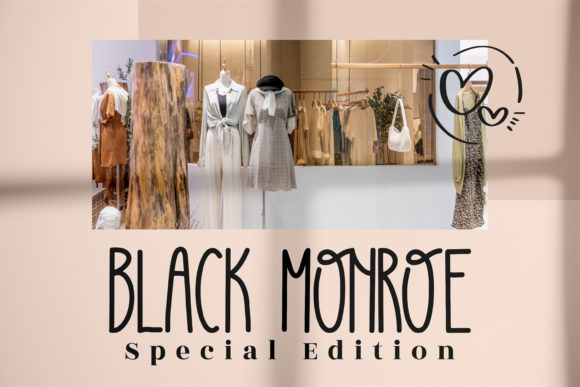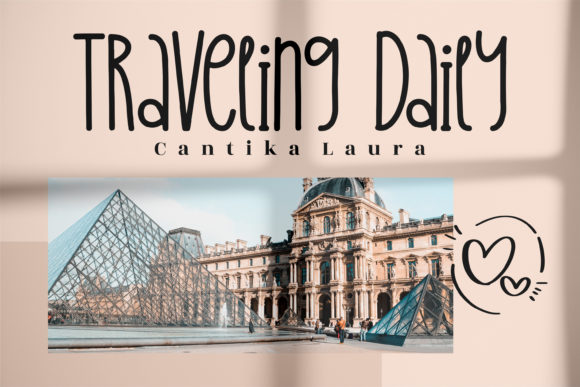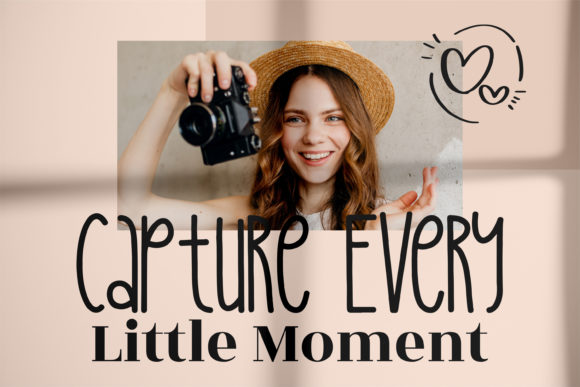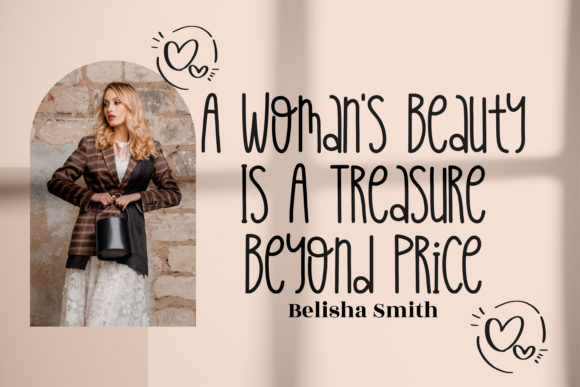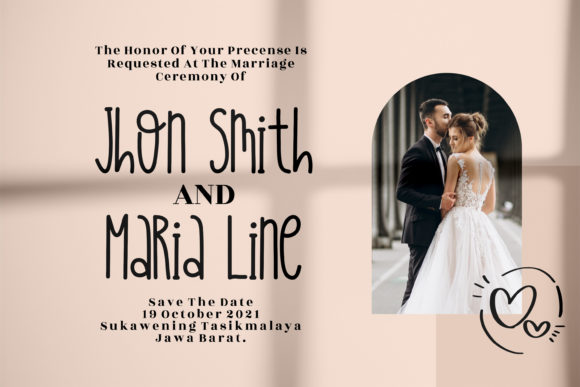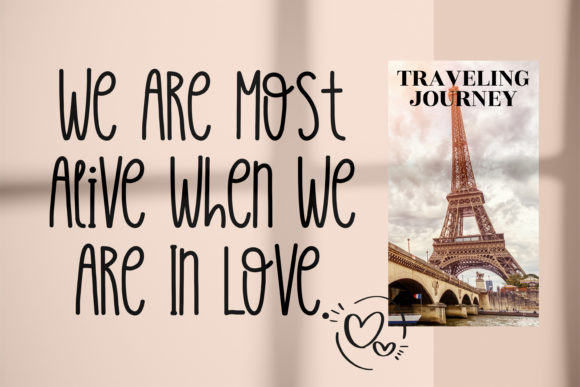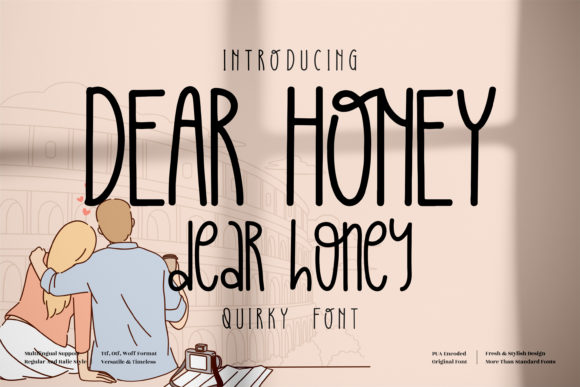
Introducing Dear Honey Font: The Sweet and Simple Handwritten Font for Your Designs
Are you a designer or crafter looking for a font that can add a personal and realistic feel to your designs? Look no further than Dear Honey Font! This beautiful, thin lettered, simple and sweet handwritten font is perfect for a variety of design projects, from crafting and scrapbooking to branding and advertising.
The Authentic Look and Feel of Dear Honey Font
Dear Honey Font boasts an authentic look and feel that is sure to capture the hearts of your audience. Its delicate and dainty lettering gives off a charming and whimsical vibe, making it perfect for designs that require a touch of sweetness and innocence. Whether you’re creating a logo, a label, or a social media graphic, Dear Honey Font is sure to add a personal and realistic feel to your work.
Characteristics of Dear Honey Font
So, what makes Dear Honey Font so special? Here are just a few of its key characteristics:
- Thin lettering: Dear Honey Font features thin, delicate lettering that is perfect for creating elegant and sophisticated designs.
- Simple and sweet: This font is incredibly simple and sweet, making it perfect for designs that require a touch of whimsy and charm.
- Handwritten: Dear Honey Font is a handwritten font, which gives it a personal and realistic feel that is hard to replicate with other types of fonts.
- Authentic look and feel: This font boasts an authentic look and feel that is sure to capture the hearts of your audience.
Uses for Dear Honey Font
Dear Honey Font is incredibly versatile and can be used for a wide range of design projects, including:
- Crafting and scrapbooking: This font is perfect for crafting and scrapbooking projects, such as journaling, card making, and paper crafting.
- Branding and advertising: Dear Honey Font can be used to create beautiful and eye-catching logos, labels, and advertisements.
- Social media graphics: This font is perfect for creating social media graphics, such as Instagram posts, Facebook graphics, and Pinterest pins.
- Stationery and invitations: Dear Honey Font can be used to create beautiful and elegant stationery and invitations.
Tips for Using Dear Honey Font
Here are a few tips for using Dear Honey Font in your designs:
- Pair it with other fonts: Dear Honey Font pairs perfectly with other fonts, such as bold and sans-serif fonts.
- Use it for headings and titles: This font is perfect for headings and titles, as it adds a touch of elegance and sophistication to your designs.
- Experiment with colors: Dear Honey Font looks beautiful in a variety of colors, from soft pastels to bold and bright hues.
In conclusion, Dear Honey Font is a beautiful and versatile font that is perfect for designers and crafters looking to add a personal and realistic feel to their designs. Its authentic look and feel, thin lettering, and simple and sweet design make it perfect for a wide range of design projects. Whether you’re creating a logo, a label, or a social media graphic, Dear Honey Font is sure to capture the hearts of your audience.